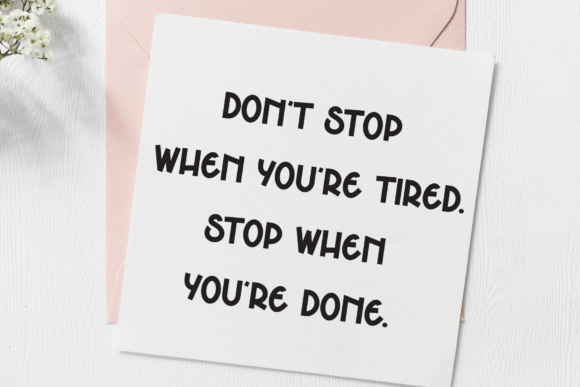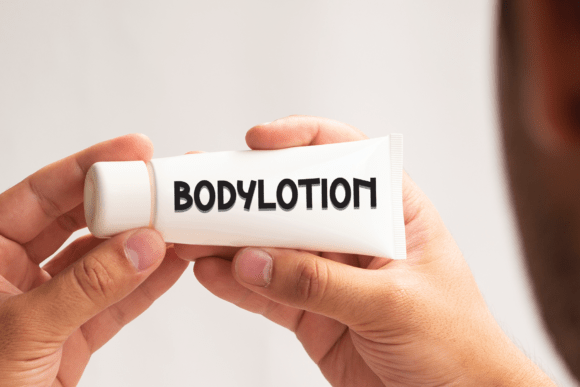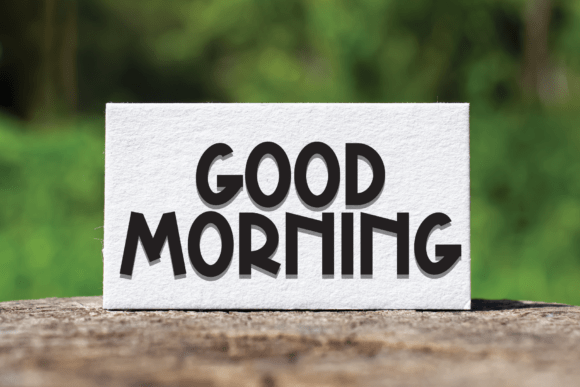
Introduction to Nothing Special Font
Have you ever stumbled upon a design that makes you feel like you’ve found a hidden gem? That’s exactly what happens when you come across the Nothing Special Font. Its clean lines and relaxed structure radiate a fresh, friendly vibe that’s perfect for packaging, posters, and social media graphics.
As a designer, you’re always on the lookout for high-quality design resources that can elevate your creative projects. And that’s exactly what the Nothing Special Font offers – a polished appearance that adds charm and clarity to any project. With a transparent background, this font is ready to be used in a variety of contexts, from branding to advertising.
Key Features of Nothing Special Font
- High-quality design resource suitable for various creative projects, including graphics, logos, and typography.
- Comes with a transparent background, allowing for seamless integration with any design or image.
- Features a high-resolution design, making it perfect for print and digital applications.
- Unique, modern design aesthetic that sets it apart from other fonts in its class.
- Designed to be versatile and adaptable, making it suitable for a wide range of creative projects and designs.
Honest Review: Nothing Special Font
I recently had the chance to work with the Nothing Special Font, a free download that’s gained popularity among designers. My experience with this design resource was largely positive, but I do have some observations to share.
- ✨ High quality glyphs that are crisp and clear, making it suitable for a wide range of creative projects.
- ✨ Transparent background options, which is perfect for designers who want to create clean and minimalist designs.
- ⚠️ Limited character set, which might be a concern for designers who need a font with a wide range of characters.
- ⚠️ No support for some advanced typography features, which might be a drawback for designers who want more control over their designs.
Overall, I would say that the Nothing Special Font is a solid choice for designers who need a clean and simple font for their creative projects. While it may have some limitations, its high quality glyphs and easy-to-use interface make it a worthwhile download. Just be aware of its limitations before using it for your design needs.
Here are a few tips for getting the most out of the Nothing Special Font:
- Experiment with different font sizes and styles to create a unique look.
- Use the font in combination with other design elements, such as images or shapes, to create a visually interesting design.
- Take advantage of the font’s transparent background to create a seamless design.
The Nothing Special Font is a versatile font that can be used in a variety of design projects, including:
- Business cards and brochures.
- Posters and flyers.
- Website headers and footers.